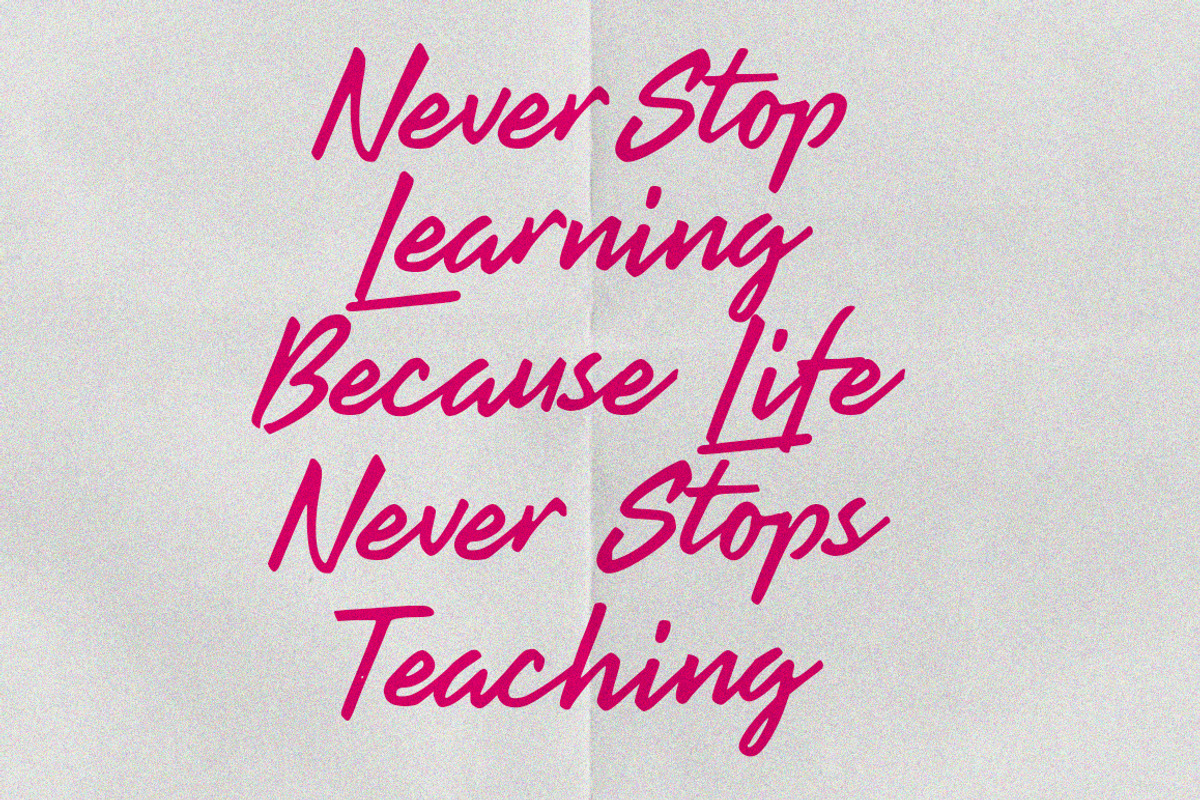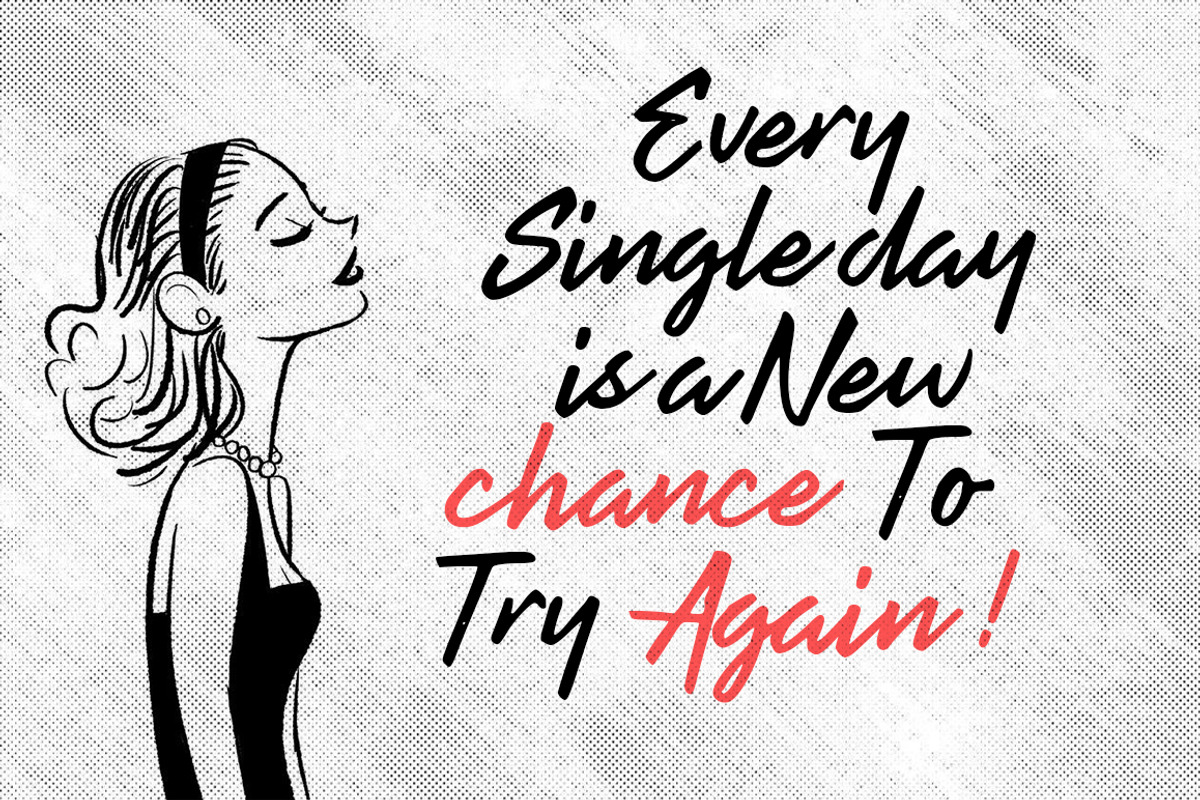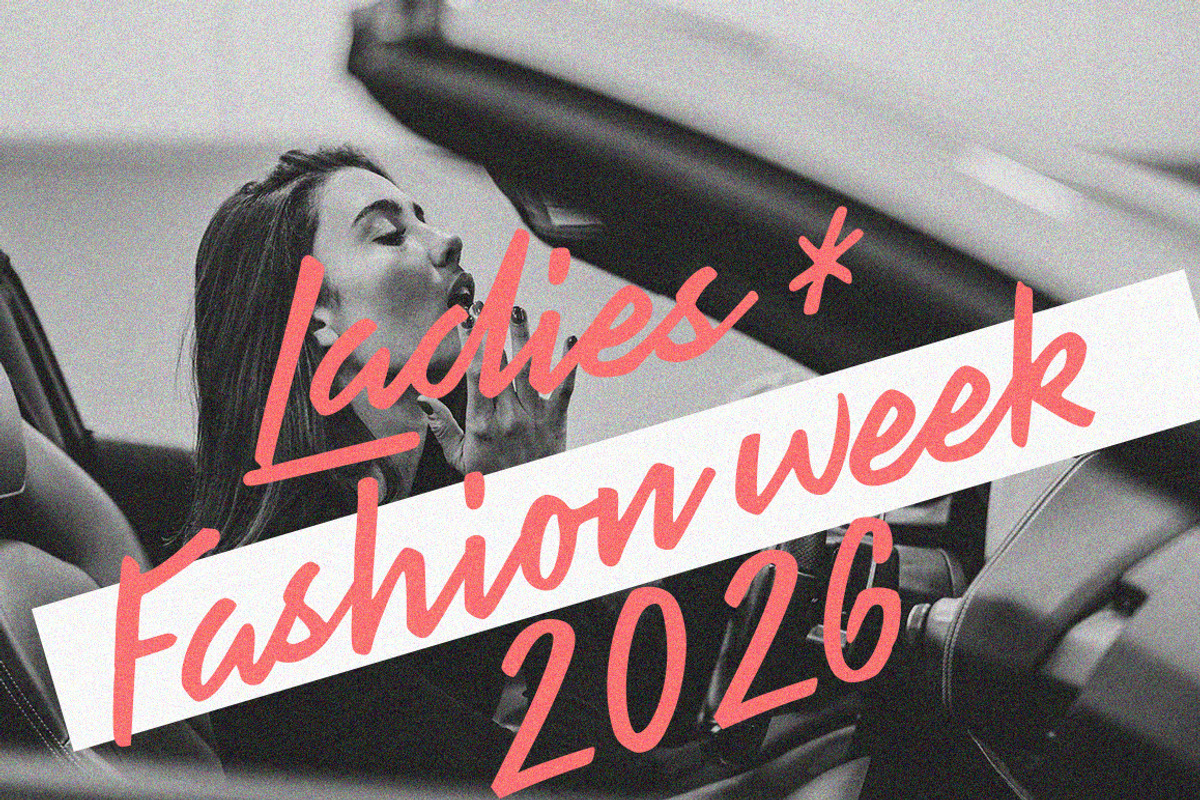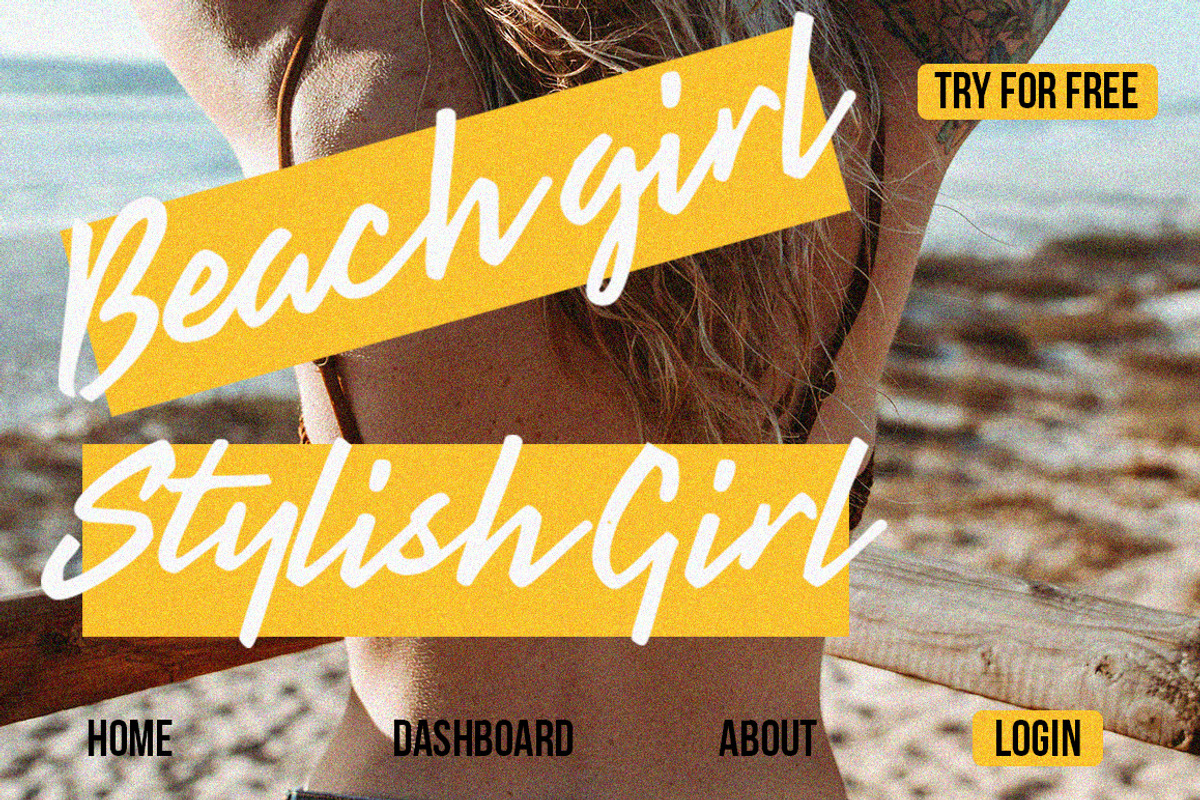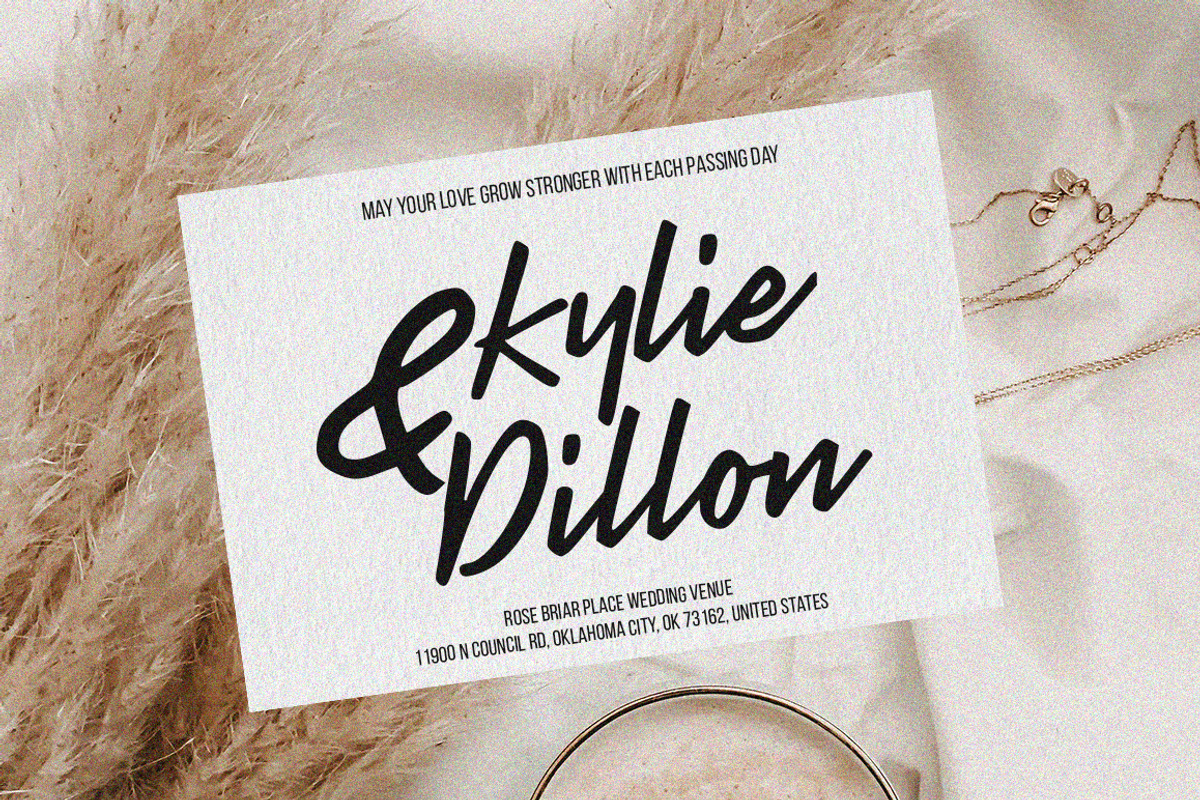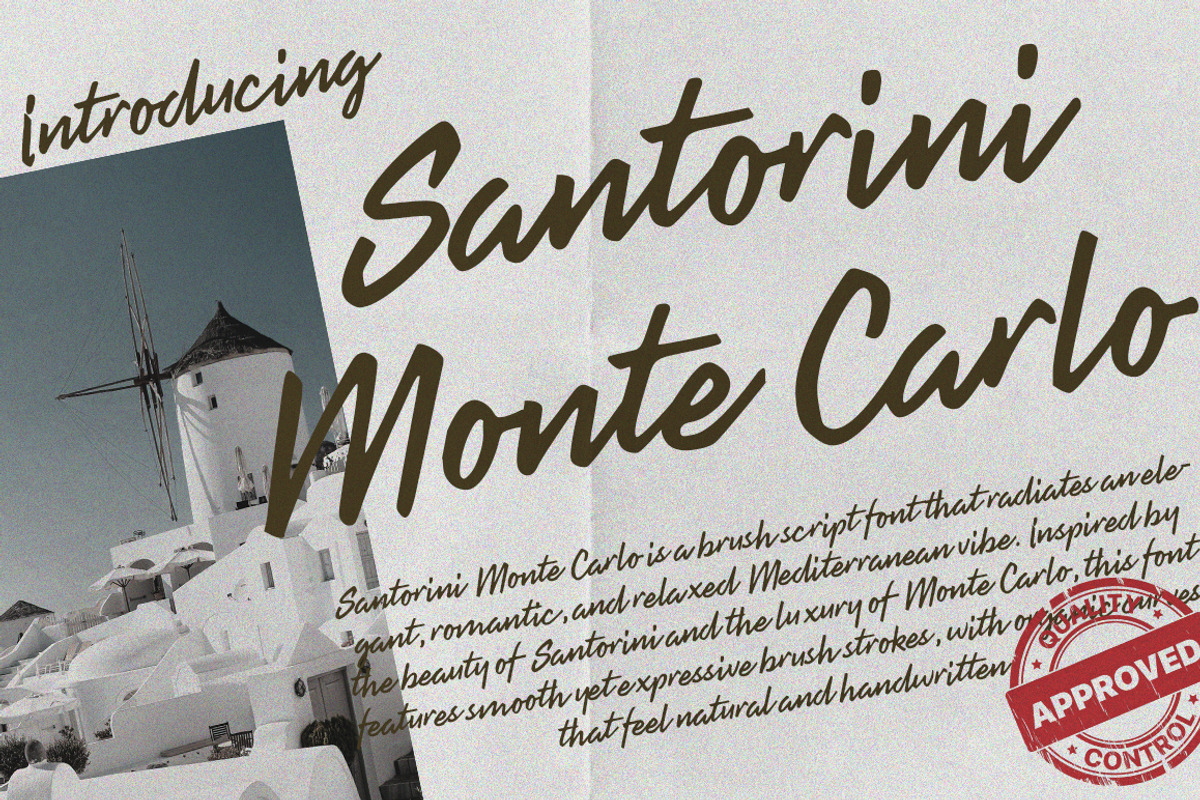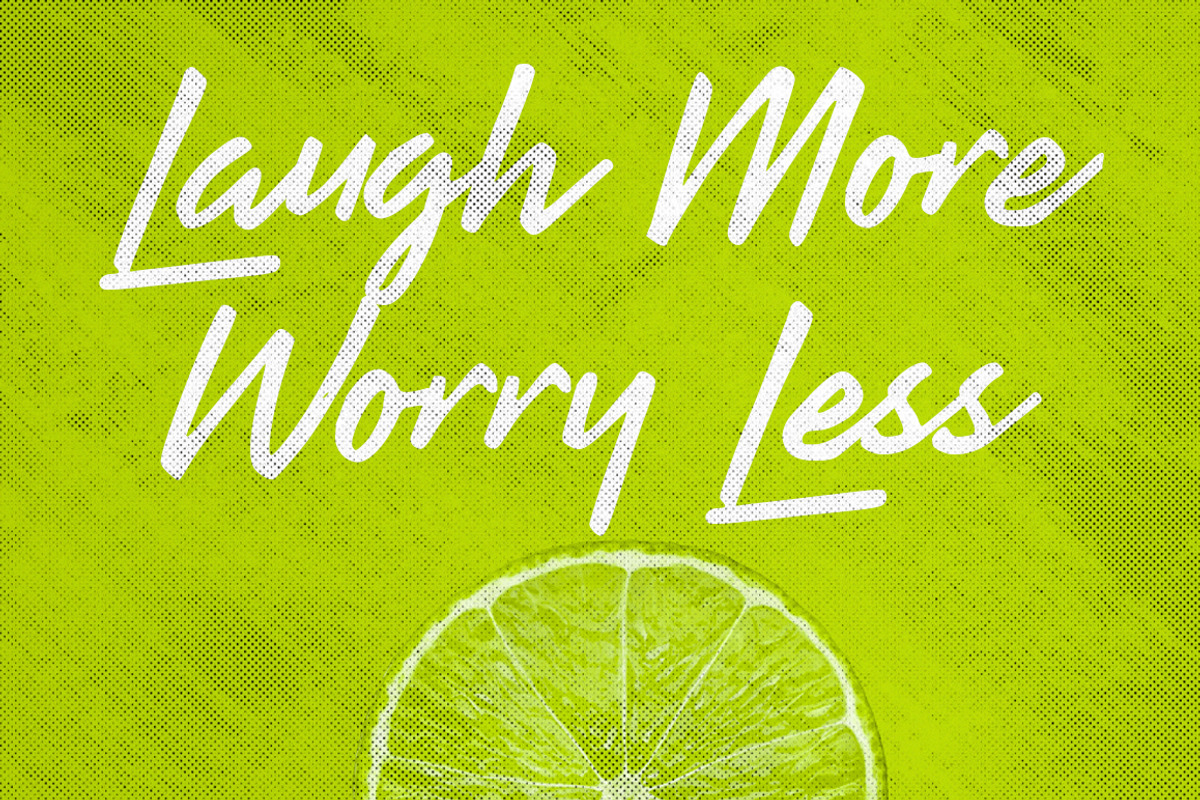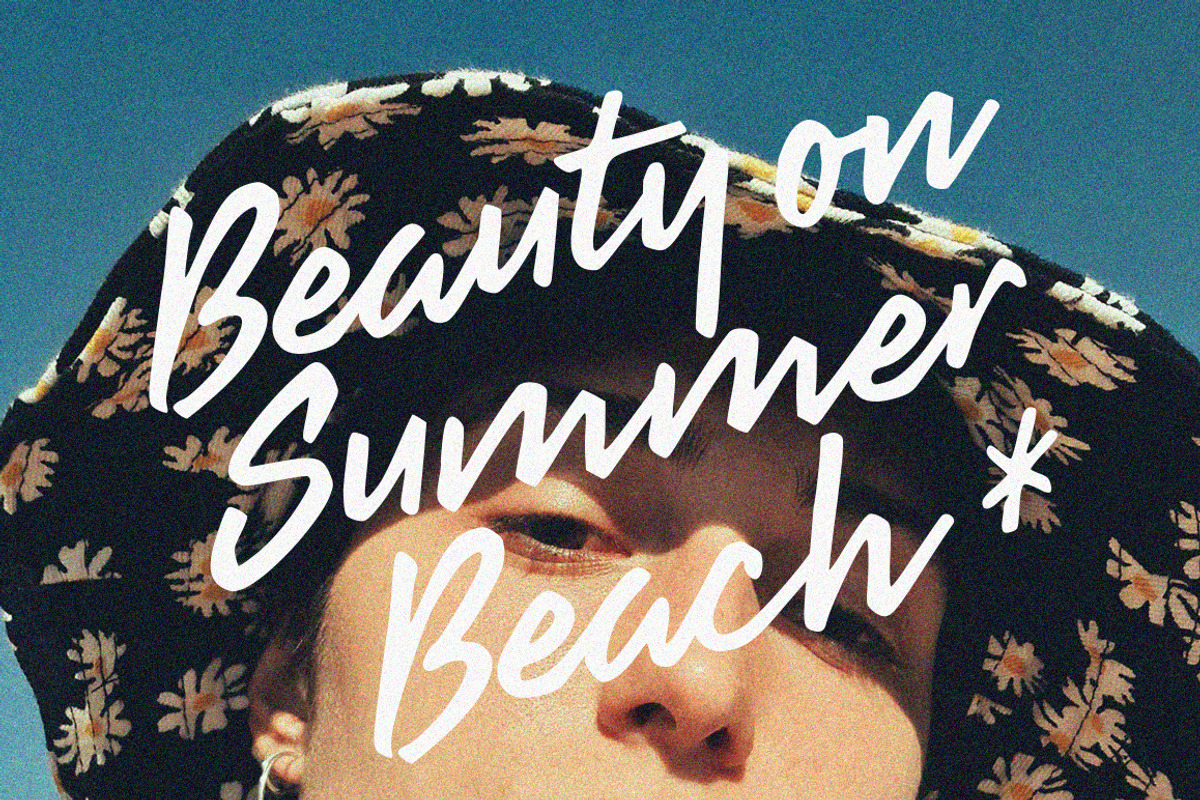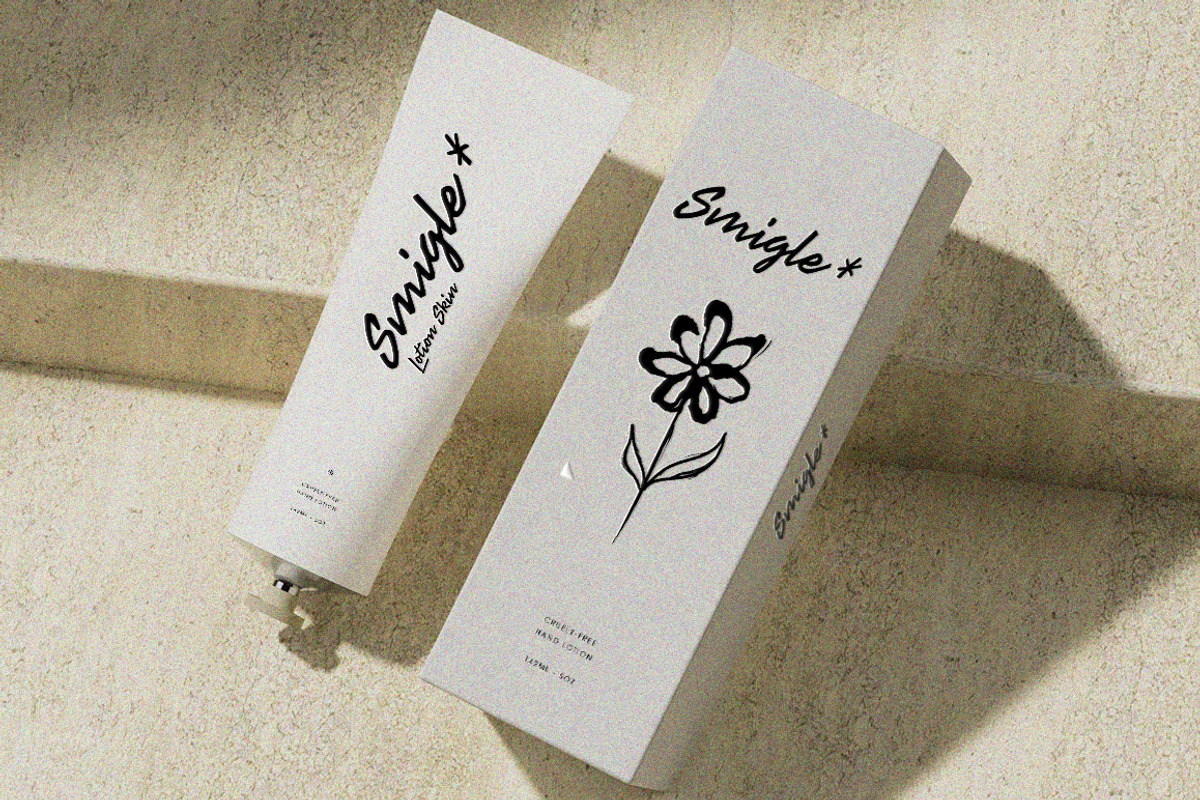
Santorini Monte Carlo | Handwritten
Santorini Monte Carlo | Handwritten is a semi-brush handmade font that blends natural brush strokes with a refined modern touch. Designed to feel expressive yet controlled, this typeface delivers a warm, artistic, and elegant personality while maintaining excellent readability.
Inspired by the romantic atmosphere of Santorini and the timeless sophistication of Monte Carlo, this font features smooth flowing letterforms, subtle texture, and balanced stroke variations. Each character reflects a handcrafted feel, creating an authentic and personal impression, as if written by hand with intention.
Santorini Monte Carlo | Handwritten is perfect for:
Wedding invitations & special events
Branding, logos, and signature designs
Greeting cards, packaging, and labels
Social media graphics, posters, and creative headlines
This font brings a sense of effortless elegance and human charm, making it an ideal choice for designs that seek to feel stylish, intimate, and distinctive.